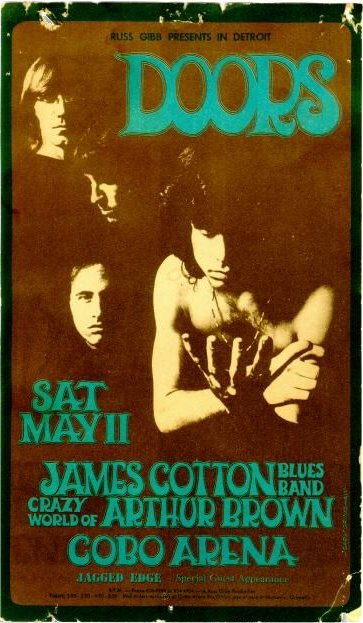
Nick Curtis: Typefaces from 2006
Typefaces made by Nick Curtis from 2006, not listed elsewhere on these pages: Magic Lantern NF, Duly Noted NF (after an ATF face from 1912 called Freeahand), Got That Bling NF (a connected script based on the work of Al Mack, from his Lettering: Brush&Pen in the Single Stroke), Haarlem Nights NF (based on a 1920 Dutch poster for Public Placement Services by Johan Dijsktra), Architectuur NF (based on De Stijl type lettering by H. Th. Wijdeveld, 1925), Gandy Dancer NF (a revival of Tabard, ca. 1912, ATF), Pomfrit Dandy NF (based on Frys Ornamented No. 2 by Stephenson Blake), Smith Premier (Clean and Schmutzy) NF (a typewriter pair after the letters of the Smith Premier No. 3), Faerie Queen NF (based on a typeface named Titania from a 1930s specimen book from the Fundición Richard Gans), Red Hot Mama NF (2006), Jumbo Mumbo NF (a revival of Independant done in 1930 by Collette and Dufour), Union Telegraph NF (2006), Major Production NF (which was followed in 2009 by Major Pro Extras NF), Teeny Boppin NF (gleaned from Schrifti Alphabeti, a book of Cyrillic alphabets published in Kiev in 1979), Rutin Tutin NF (based on Wild West lettering found in Schrifti Alphabeti, 1979), Jampact NF (2006, an ultra fat headline face), Beagle Boyz NF (a bouncy face based on a Cyrillic alphabet presented in the book Schrifti Alphabeti, 1979), Midtown Tessie NF and Downtown Tessie NF (mosaic tile faces), Scary Scrimshaw (based on a 1968 poster for a Doors concert), Speedball No1, Speedball No2 SW (2001), Speedball No3 (2001), Bellagio NF (an interpretation of Robert Wiebking's 1917 font Advertisers Gothic, designed for BB&S), High Society NF (2006, a fashion mag face based on an alphabet found in Lettering for the Commercial Artist by Blandford Press, 1946), Osiyo Dohitsu NF (based on letterforms in the Cherokee Syllabary, reputedly devised by Sequoyah in the early nineteenth century; it has petroglyphs as well), Micro Manager NF (pixel face), Paper Caper NF (2006), Shady Grove (a condensed version of Thorne Shaded), American Pi NF (2006: ATF ornaments from the catalogs between 1913-1934, including some designed by Will Bradley, Frederic Goudy and George Trenholm), The Donald NF (a hyper-curly decorative face), Boo Meringue NF (a Halloween font based on Lithotint (1897, ATF)), Lesser Arcana (a mystical type), Zyklop NF (2006), Deux Chasses NF (based on ATF's Thermotype), Bon Mot NF (based on Barnhart Brothers&Spindler's Engravers Upright Script), Munchkin Land NF (based on a work called Thor, issued by Frederic Wesselhoeft Ltd of London in the 1930s), Didgeree Doodle NF (2006, a curly cursive originally released as Bernhard Heavy Antique Cursive by the Bauersche Giesserei by Lucien Bernhard), Kudo Kaps One, Two, Three and Four NF (a total of eight classical initial caps faces), Crane Titling NF (medieval-inspired uppercase letters drawn by famed book illustrator Walter Crane with charming, if somewhat quirky, lowercase letters by J. W. Weekes), DecimoSexto NF (+italic) (includes Spanish Roman letters and Griffo style italics, both hand-drawn by Francisco Lucas in Madrid, 1577), Visillo Adornado (a caps face based on the typeface Vesta, originally designed by Albert Auspurg for H. Berthold AG, Berlin in 1926). |